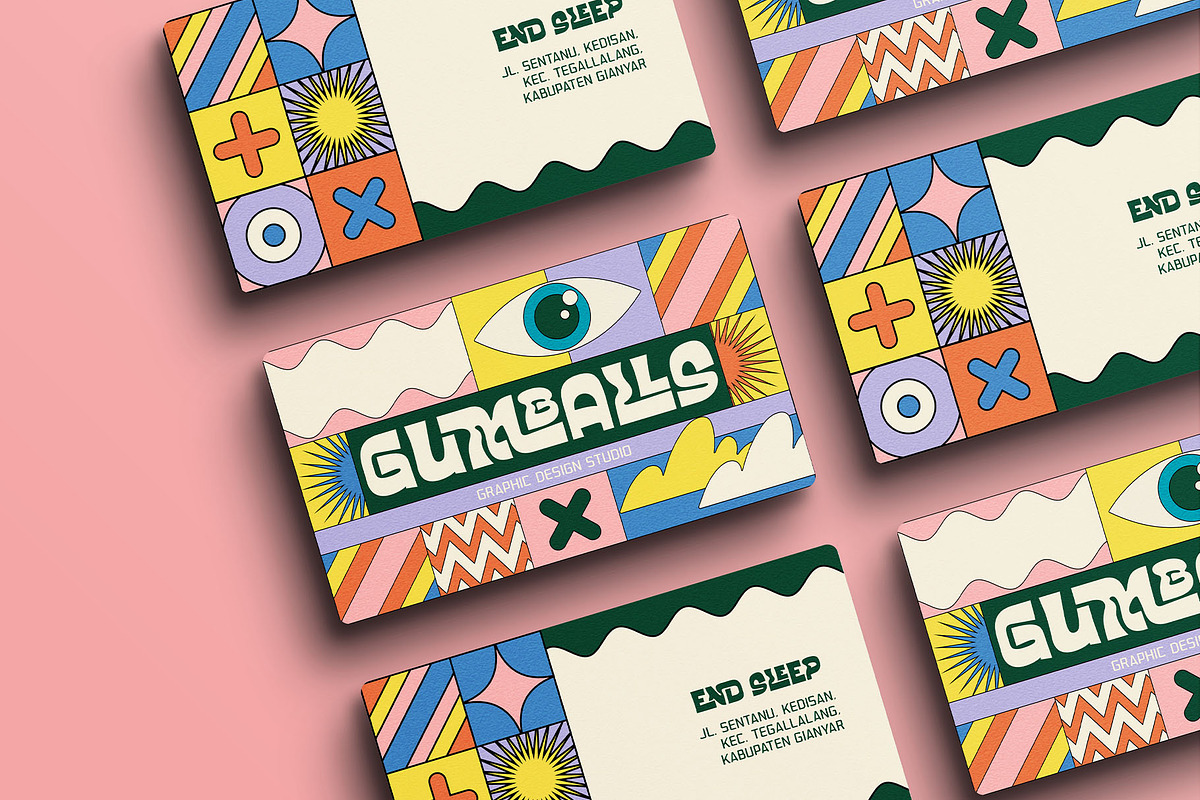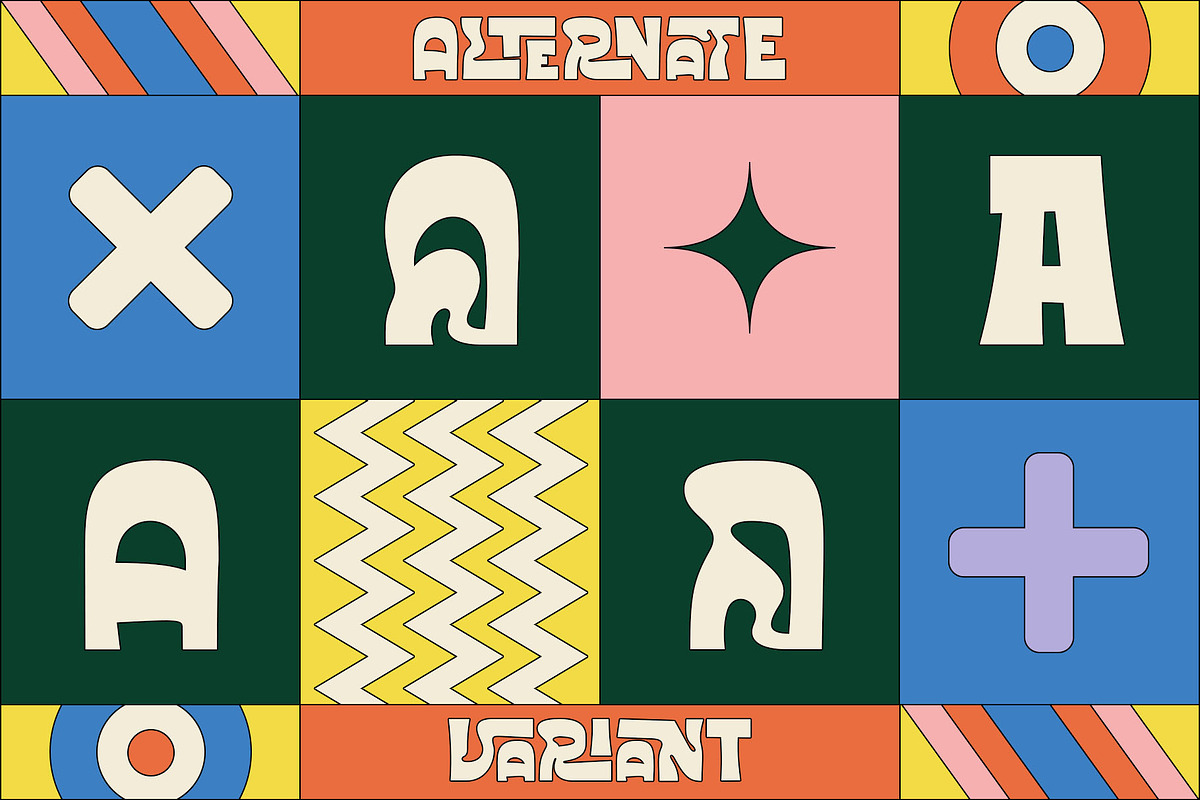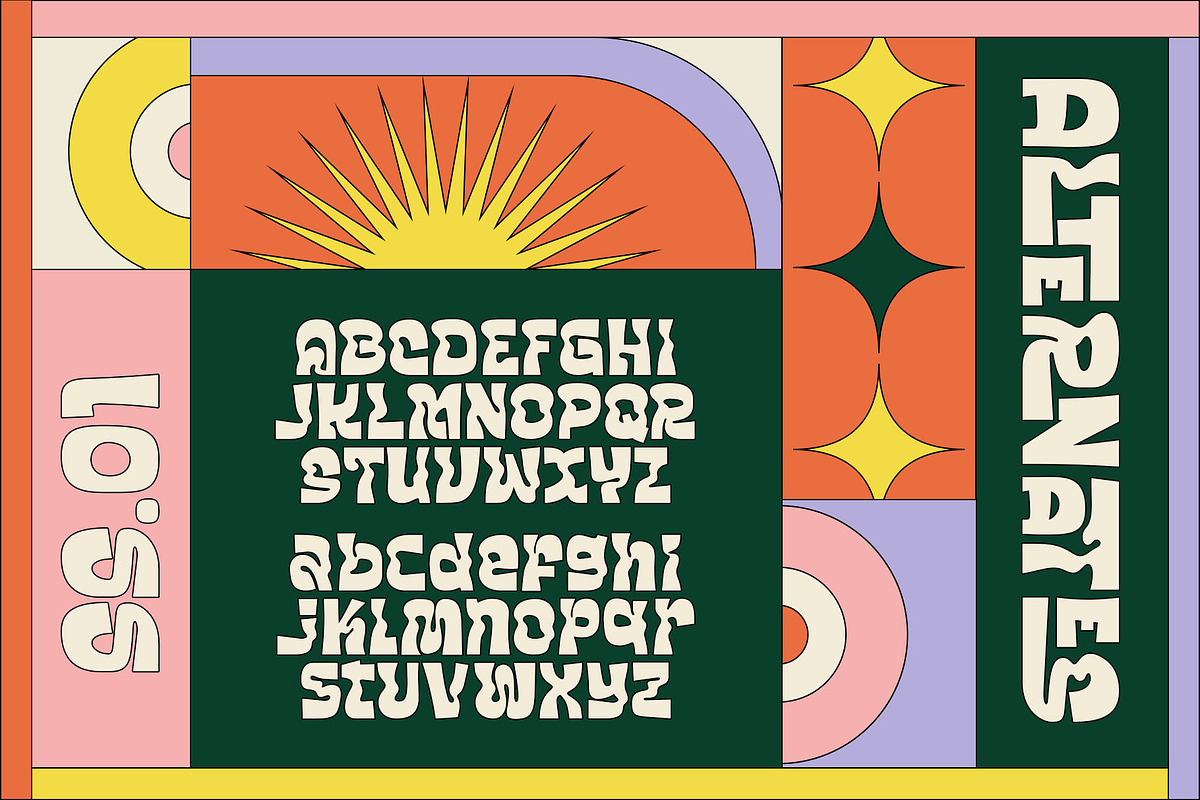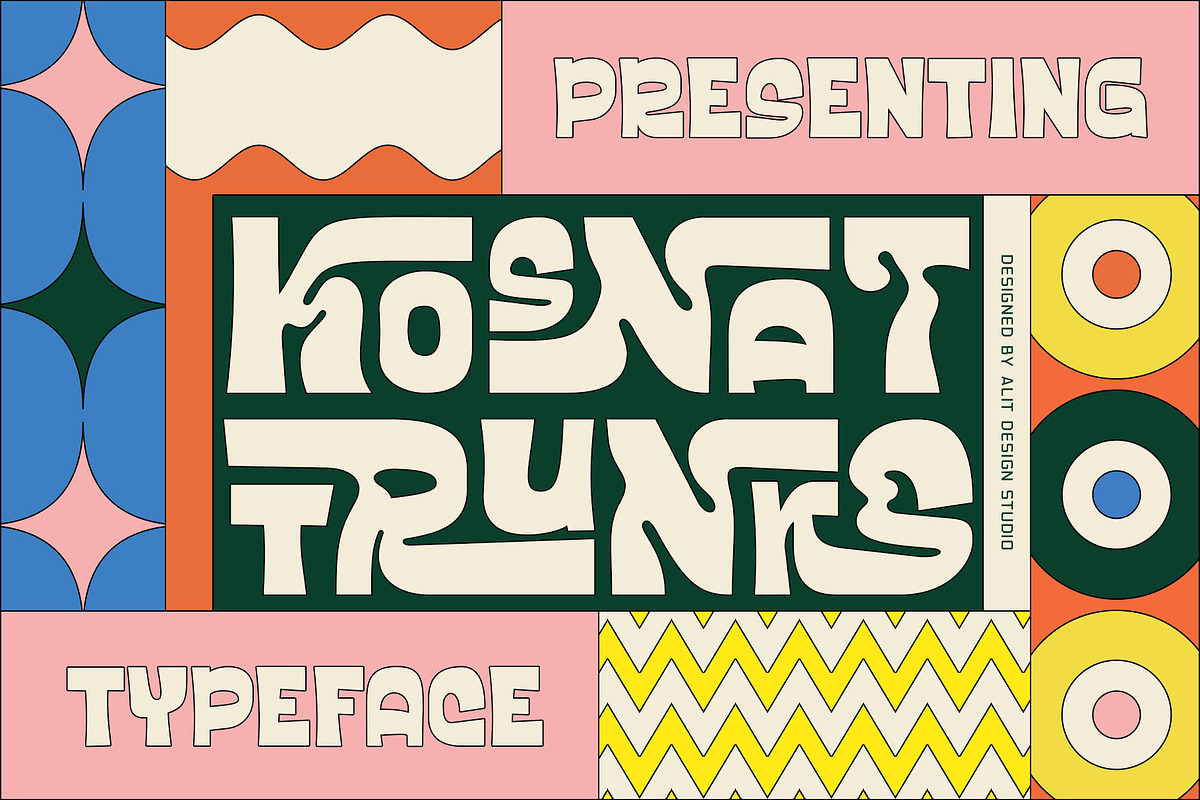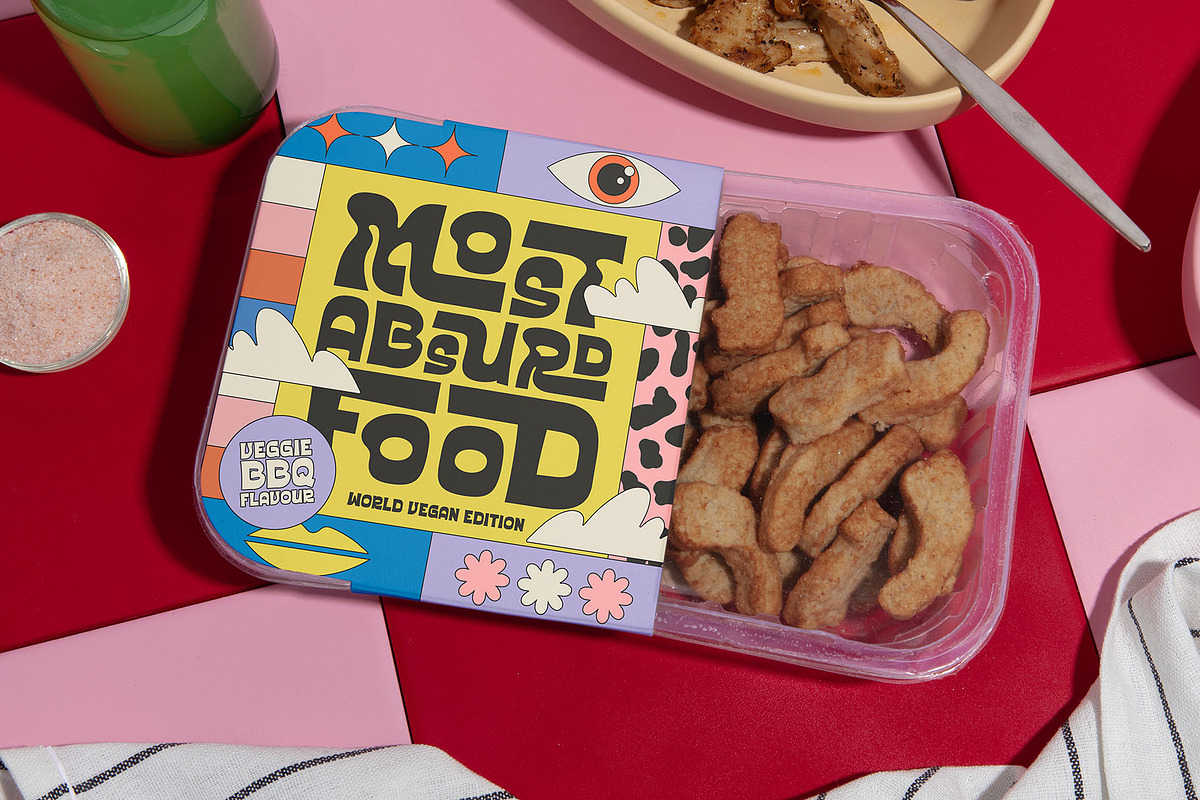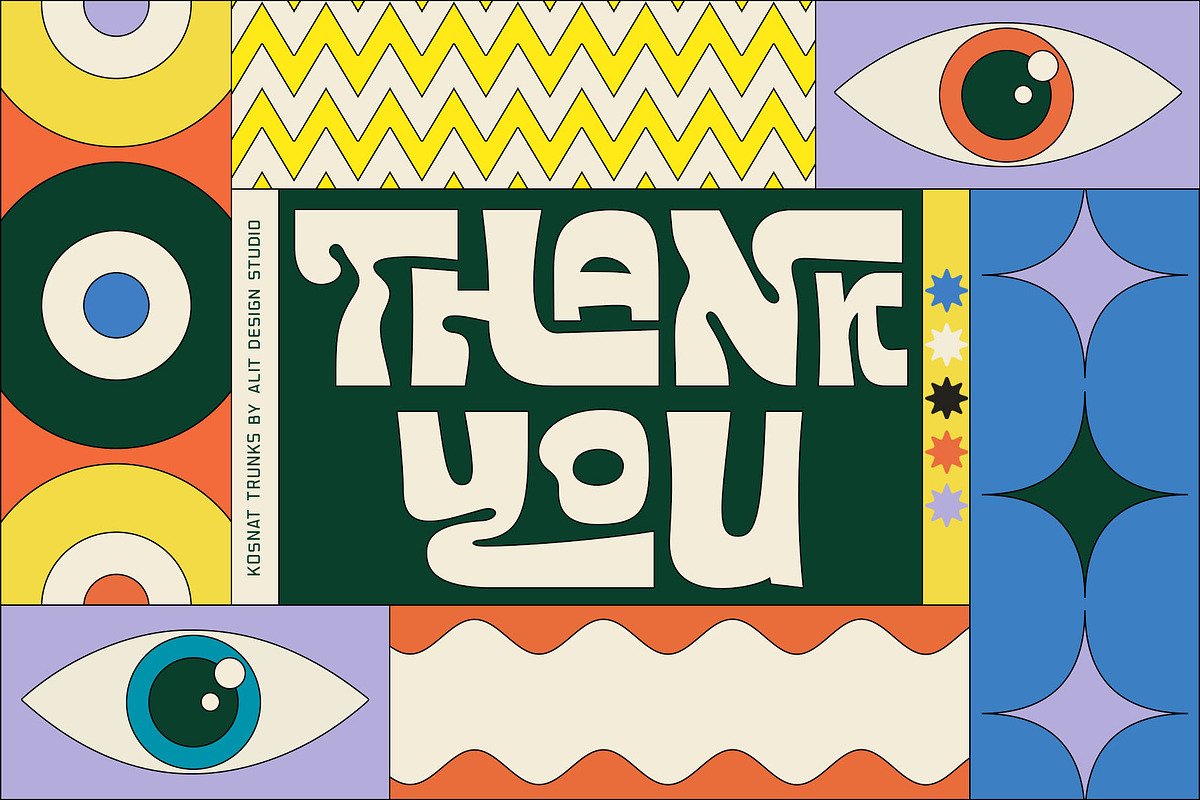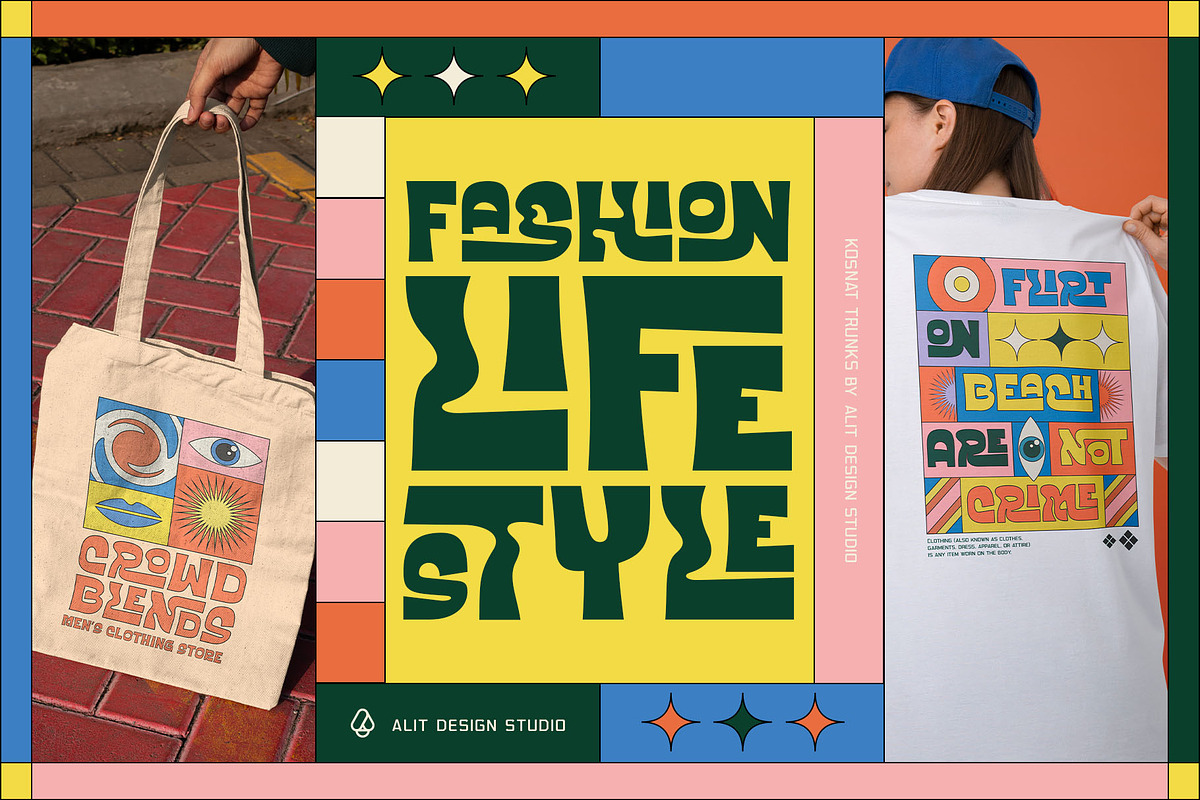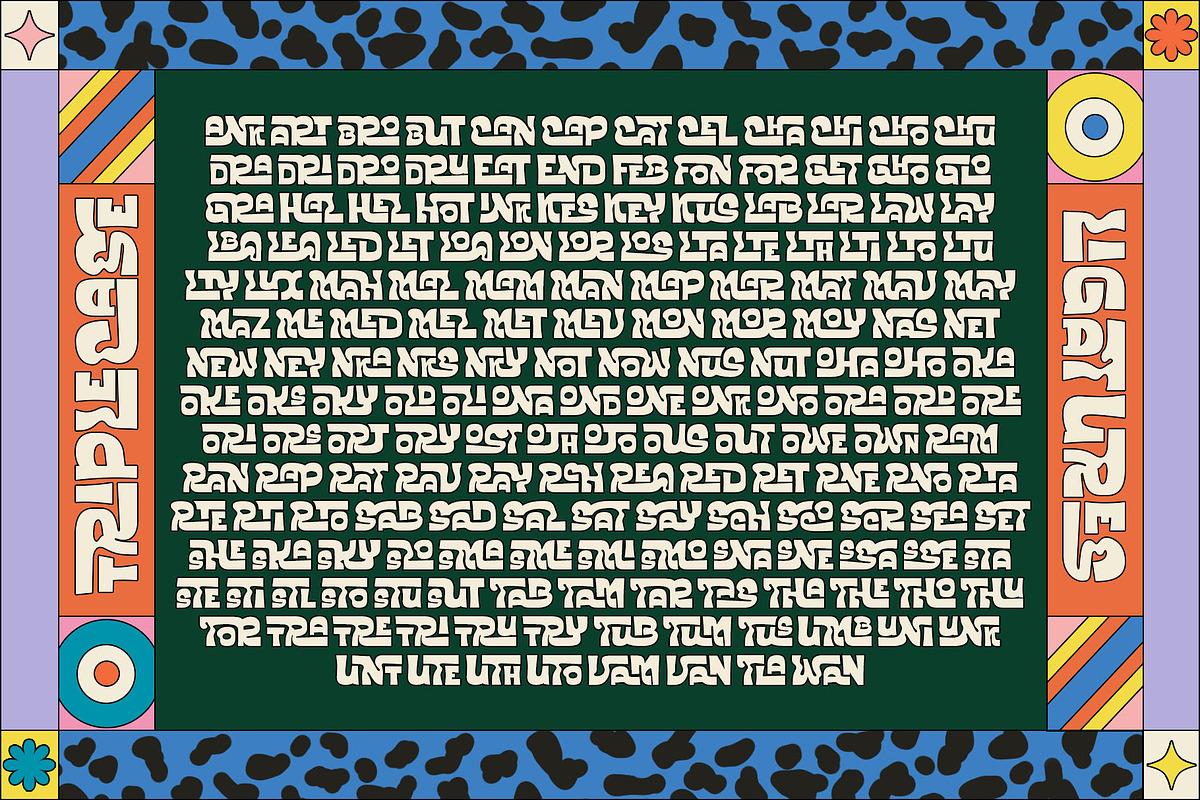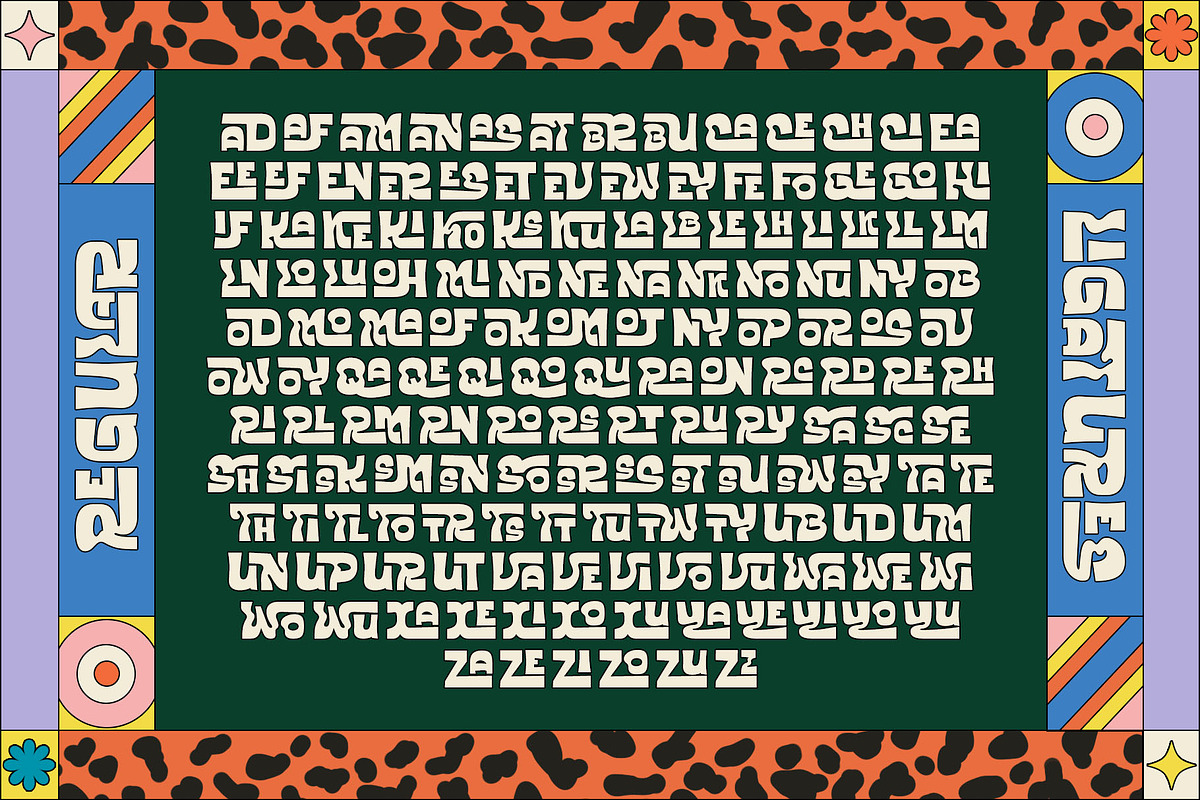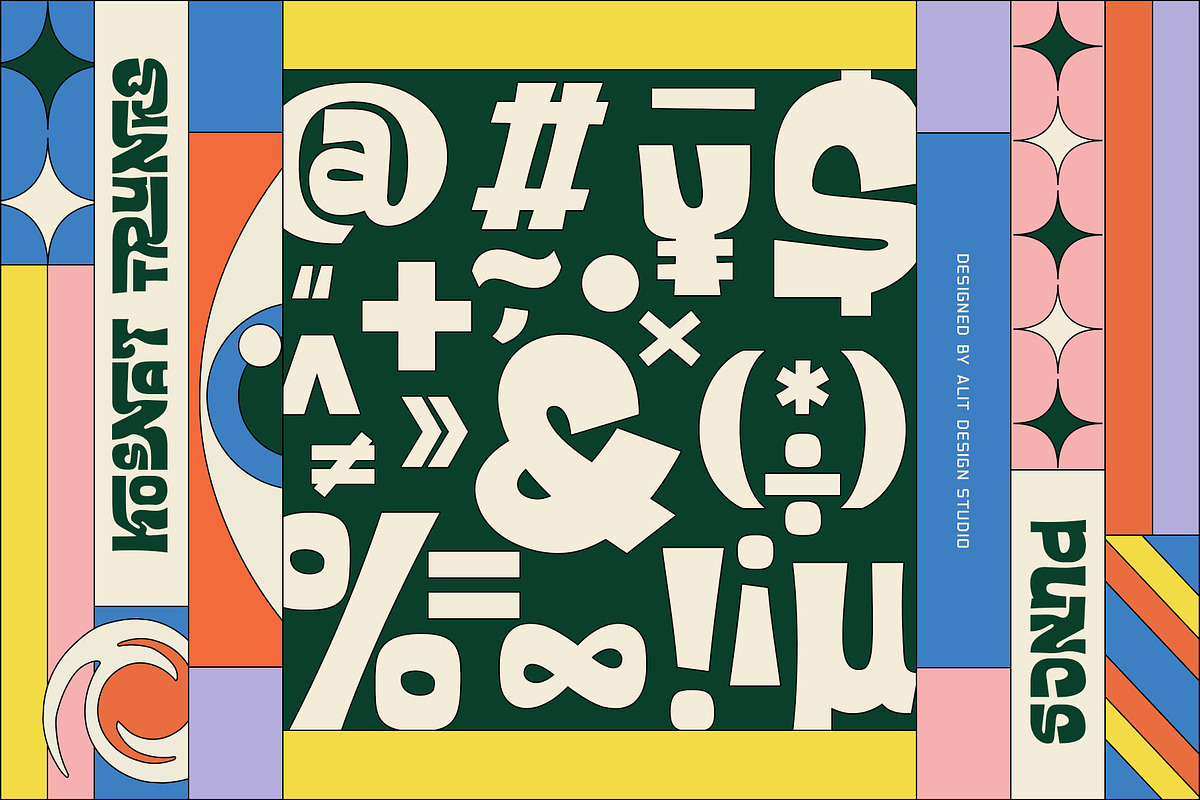
Kosnat Trunks Retro Display Typeface
Kosnat Trunks is a striking sans-serif display font that seamlessly blends retro aesthetics with a touch of modern design. With its wavy ligatures and a whopping 920 meticulously crafted glyphs, this font is a typographic masterpiece that will elevate your design projects to new heights.
Retro Charm: Kosnat Trunks exudes a delightful retro charm that harks back to the styles of the past, making it perfect for vintage-inspired designs.
Wavy Ligatures: The unique wavy ligatures add a playful and dynamic element to the font, making your text visually captivating and memorable.
Vast Glyph Library: With an extensive collection of 920 glyphs, Kosnat Trunks offers you unparalleled versatility in your design work. This includes uppercase and lowercase characters, punctuation, symbols, and special characters.
Multilingual Support: Whether your project requires Latin-based characters or extends to various international languages, Kosnat Trunks has you covered with its comprehensive multilingual support.
Ideal Usage:
Vintage Branding: Create eye-catching logos and branding materials for retro-inspired businesses and products.
Poster Art: Craft attention-grabbing posters and promotional materials that demand attention.
Editorial Design: Elevate your magazine layouts, book covers, and editorial spreads with this unique font.
Packaging: Design packaging that stands out on the shelf and tells a compelling story.
Web Design: Use Kosnat Trunks to add a touch of nostalgia and personality to your website headers and titles.
Kosnat Trunks is not just a font; it's a design tool that empowers you to infuse your projects with a sense of nostalgia and style. Elevate your typography game with this versatile and captivating typeface.